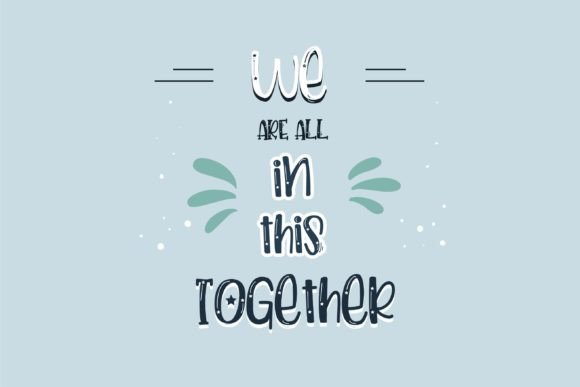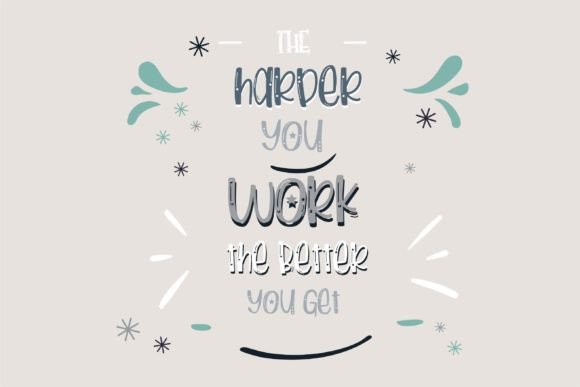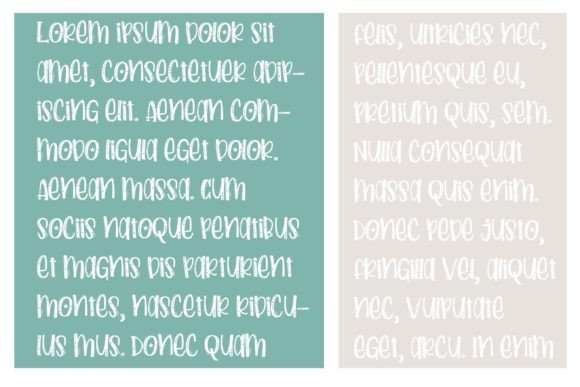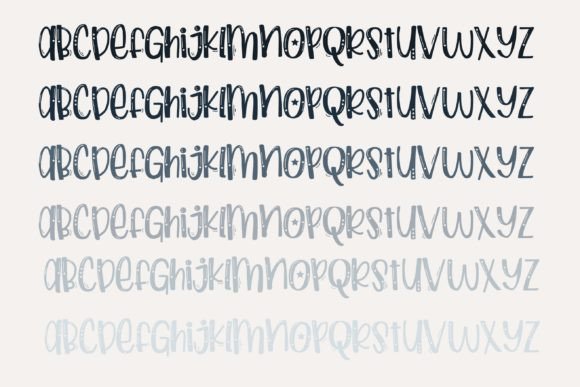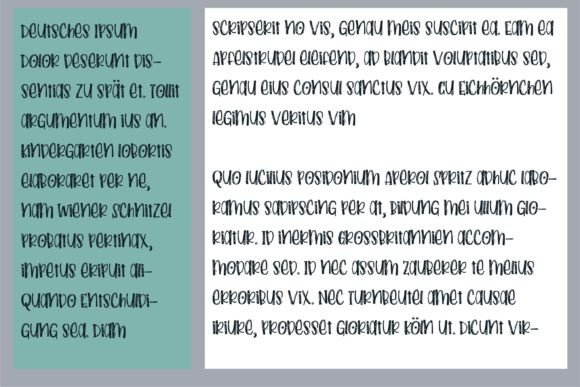
Pocketful of Patriotism Font
About Pocketful of Patriotism Font
“Pocketful of Patriotism Font: Fun and Patriotic Handwritten Delight
Introducing Pocketful of Patriotism, a fun and patriotic handwritten font designed to bring a touch of starry joy to your creative projects. Whether you’re working on quotes, titles, brand names, book covers, posters, or any creation that requires a patriotic vibe, Pocketful of Patriotism is a great choice. This font is not just a typeface; it’s a design asset that adds a sense of fun and patriotism to your work.
The fun and patriotic delight of Pocketful of Patriotism shines through, making it an excellent choice for a variety of creative applications. The handwritten style of the font creates a whimsical and inviting visual experience with a patriotic flair.
For patriotic-themed designs, quotes, and posters, Pocketful of Patriotism becomes a standout choice, infusing a sense of starry joy and patriotism into your text. The font’s friendly and fun style contributes to a visually pleasing and memorable design.
In various creative projects such as titles, brand names, and book covers, Pocketful of Patriotism serves as a delightful element, creating a visual impact with its playful and patriotic design. Its versatile nature adds a touch of joy and patriotism to your creative endeavors.
Pocketful of Patriotism’s suitability extends to a wide array of design applications, making it ideal for various projects that require a fun and patriotic touch. The font’s handwritten and playful style enhances the overall aesthetics, creating a visually pleasing and memorable experience.
In conclusion, Pocketful of Patriotism is more than just a typeface; it’s a design companion that brings fun and patriotic playfulness to your creative toolkit. Let Pocketful of Patriotism be the artistic touch that adds a sense of joy and patriotism to the beauty of your projects. Embrace the whimsical and patriotic charm of Pocketful of Patriotism, and watch as it transforms your ideas into visually enchanting and memorable experiences.”